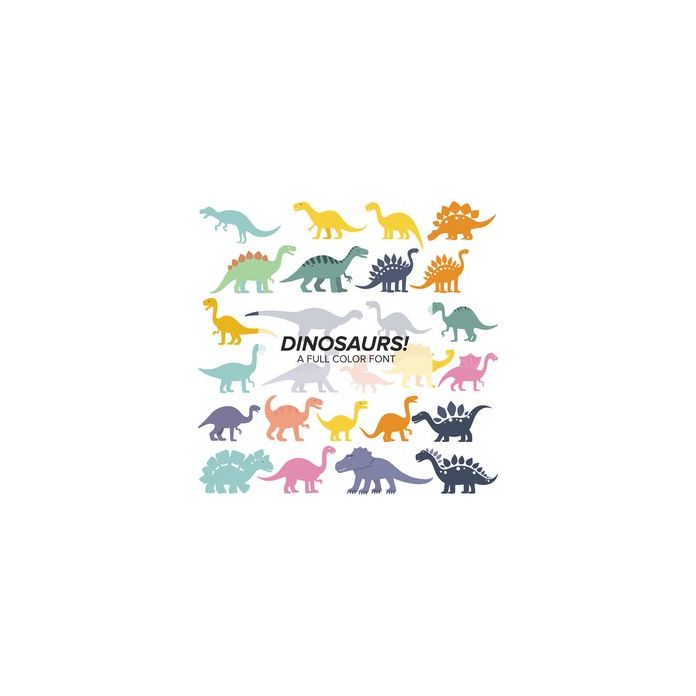
Color fonts will appear black if not used in a compatible program. This font type should be used with Silhouette Studio to appear in color. This is full color font contains 26 adorable dinosaur shapes perfect for your Dino loving child, parties, decor, and more!